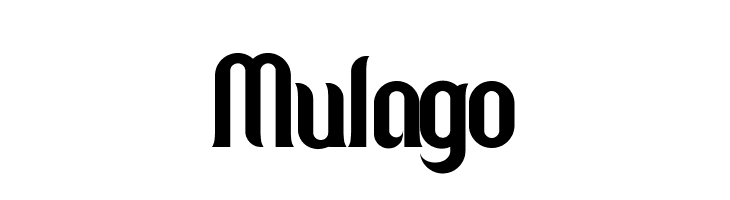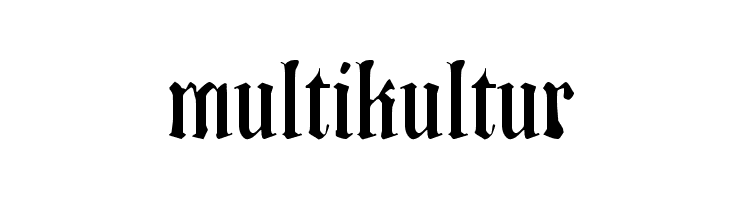
A bold, modern font with vintage flair and fluid, elongated characters.
A striking serif font with sharp angles and smooth curves, exuding elegance.
A playful, rounded font with a bold and friendly appearance.
A playful, handwritten-style italic font with smooth, rounded strokes.
A playful, bold outline font with rounded edges and consistent width.
A playful, handwritten font with a whimsical and friendly style.
An elegant script font with ornate swirls and loops, perfect for artistic projects.
Modern sans-serif font with geometric shapes.
A clean, modern sans-serif font with balanced spacing and consistent stroke width.
A bold, modern sans-serif font with clean lines and strong presence.